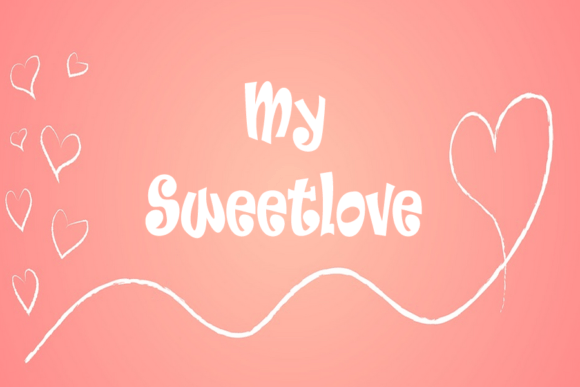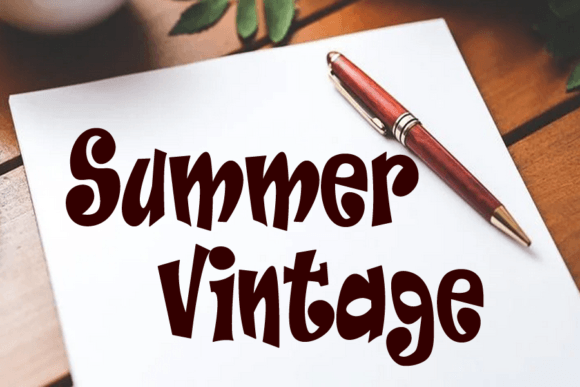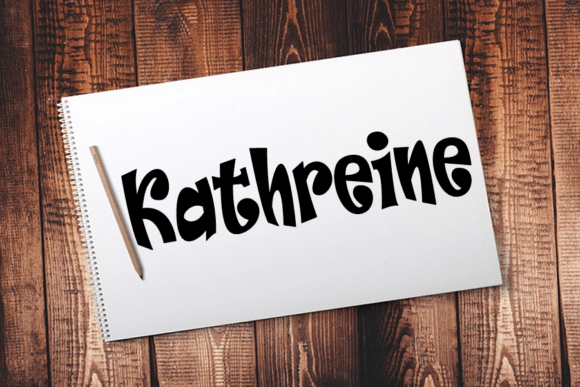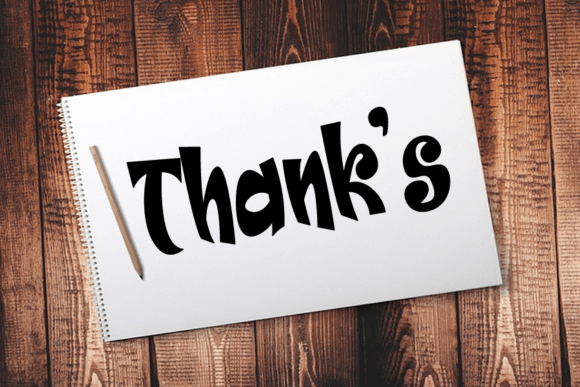
Discover the Charm of Gabrielle Font: A Cute Display Font for Your Design Projects
Are you looking for a font that can add a touch of playfulness and charm to your design projects or crafting ideas? Look no further than Gabrielle Font! This adorable display font is perfect for anyone who wants to create eye-catching and engaging designs that showcase their personality. In this article, we’ll take a closer look at Gabrielle Font, its features, and how you can use it to elevate your designs.
What is Gabrielle Font?
Gabrielle Font is a cute display font that is designed to be bouncy, charming, and perfect for many design projects or crafting ideas. Its playful and whimsical design makes it an excellent choice for designers and crafters who want to add a personal touch to their work. Whether you’re creating a logo, poster, or social media graphic, Gabrielle Font is sure to make your design stand out.
Key Features of Gabrielle Font
So, what makes Gabrielle Font so special? Here are some of its key features:
- Bouncy and playful design: Gabrielle Font has a unique, bouncy design that adds a touch of playfulness to any design project.
- Charming and whimsical: This font has a charming and whimsical feel that’s perfect for designers and crafters who want to create engaging and eye-catching designs.
- Perfect for display text: Gabrielle Font is designed specifically for display text, making it perfect for headlines, titles, and other prominent text elements.
- Easy to read: Despite its playful design, Gabrielle Font is easy to read, making it perfect for use in a variety of design projects.
How to Use Gabrielle Font in Your Design Projects
Now that we’ve covered the features of Gabrielle Font, let’s talk about how you can use it in your design projects. Here are some ideas to get you started:
- Logos and branding: Use Gabrielle Font to create a unique and memorable logo for your business or brand.
- Posters and flyers: Add a touch of playfulness to your posters and flyers with Gabrielle Font.
- Social media graphics: Use Gabrielle Font to create eye-catching social media graphics that showcase your personality.
- Crafting projects: Gabrielle Font is perfect for crafting projects, such as scrapbooking, card making, and DIY signs.
Tips for Using Gabrielle Font Effectively
To get the most out of Gabrielle Font, here are some tips to keep in mind:
- Use it sparingly: While Gabrielle Font is perfect for display text, it’s best to use it sparingly to avoid overwhelming your design.
- Pair it with other fonts: Experiment with pairing Gabrielle Font with other fonts to create a unique and visually appealing design.
- Experiment with colors: Don’t be afraid to experiment with different colors to find the perfect combination for your design.
In conclusion, Gabrielle Font is a cute display font that’s perfect for designers and crafters who want to add a touch of playfulness and charm to their design projects. With its bouncy and charming design, Gabrielle Font is sure to make your designs stand out. Whether you’re creating a logo, poster, or social media graphic, Gabrielle Font is a great choice. So why not give it a try and see how it can elevate your designs?
With its ease of use, versatility, and adorable design, Gabrielle Font is sure to become a favorite in your design toolkit. So go ahead, get creative, and have fun with Gabrielle Font!